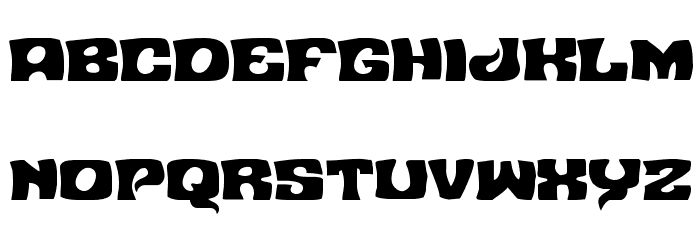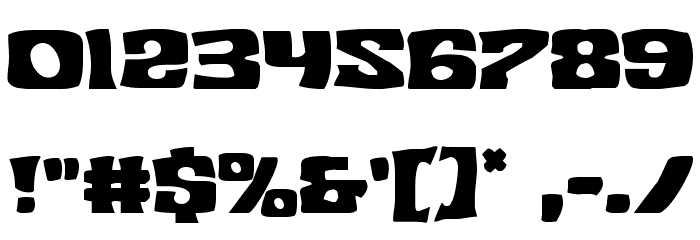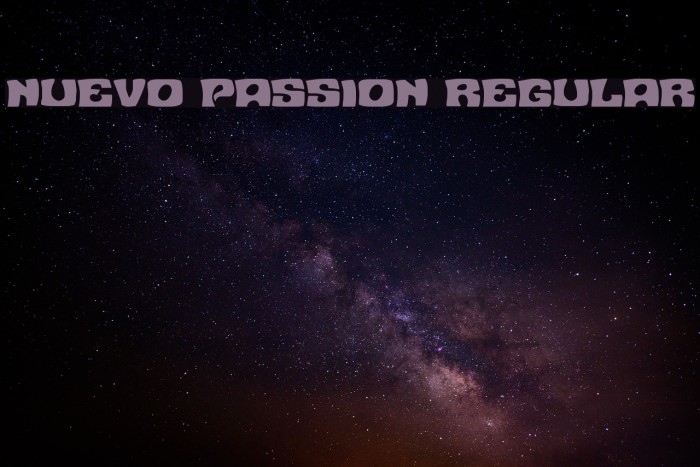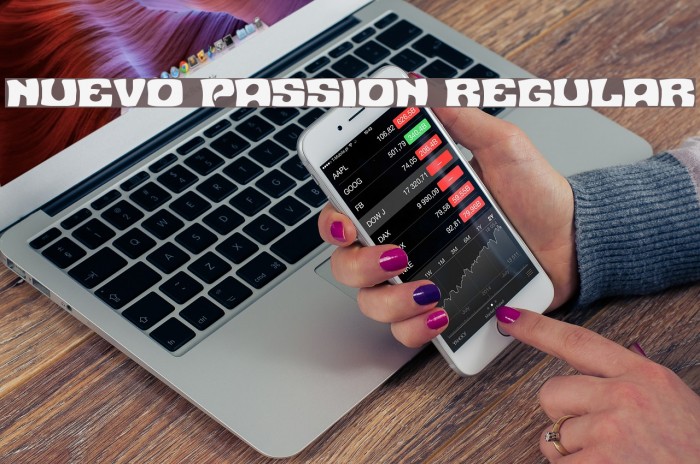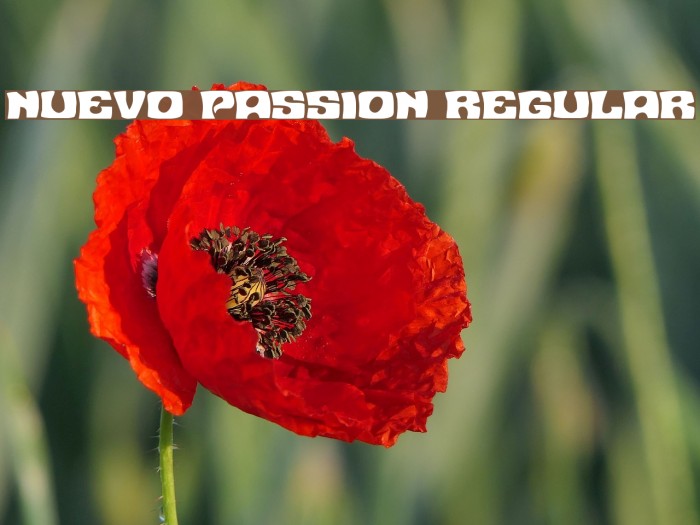
Nuevo Passion Regular Font
This font features a bold and dynamic style with thick, rounded strokes that give it a strong presence. The characters are uniquely shaped with a playful, almost cartoonish quality, making it stand out in any design. The uppercase letters are particularly bold, while the lowercase letters maintain a consistent weight, ensuring readability. The numbers and special characters follow the same bold and rounded design, providing a cohesive look across all elements. This font is ideal for projects that require a fun and eye-catching typeface.
A bold, playful font with thick, rounded strokes and unique character shapes.
- Proposed Projects: Perfect for posters, children's books, comic strips, and branding that requires a fun and engaging typeface.